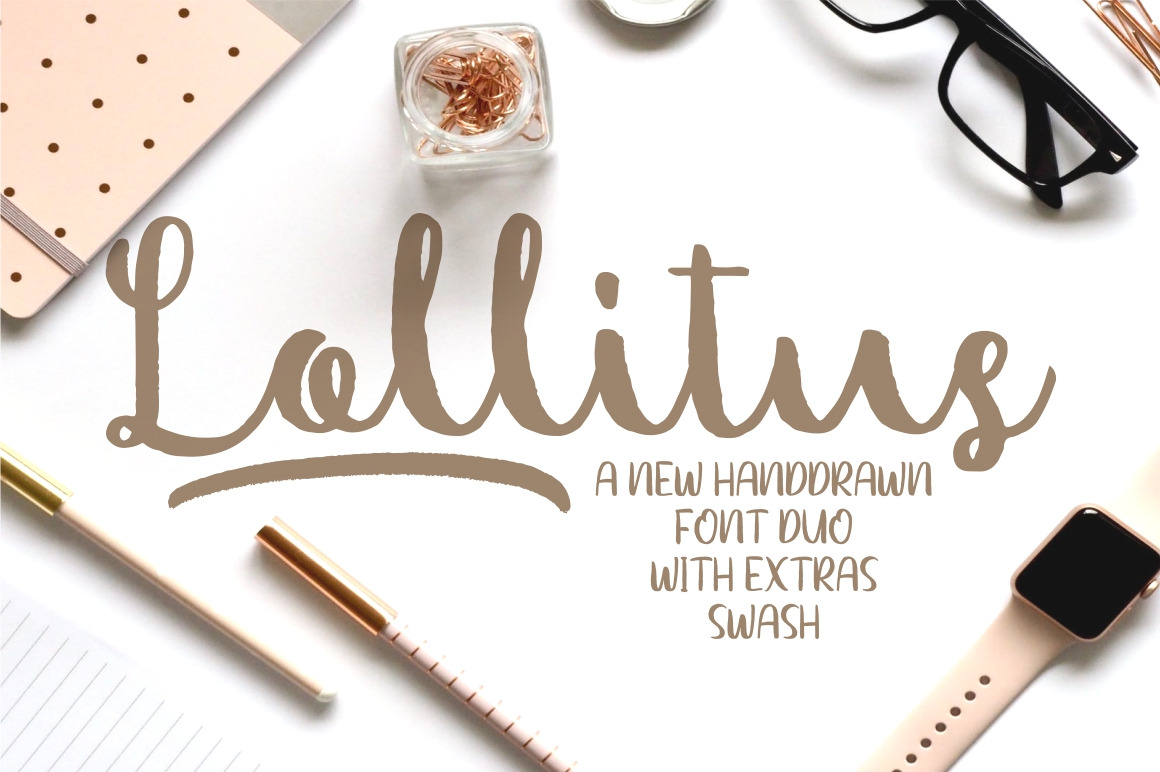
Lollitus Font Duo
Lollitus is font duo with script and sans style. Modern looking handwritten script, ideal for use in projects that need an organic and natural style. This font is great for logo, logotype, branding,wedding, fashion, label, book cover, t-shirt, instagram post, and other, and can add an elegant and classy look to your work.
- Extra Swash (with numeral)